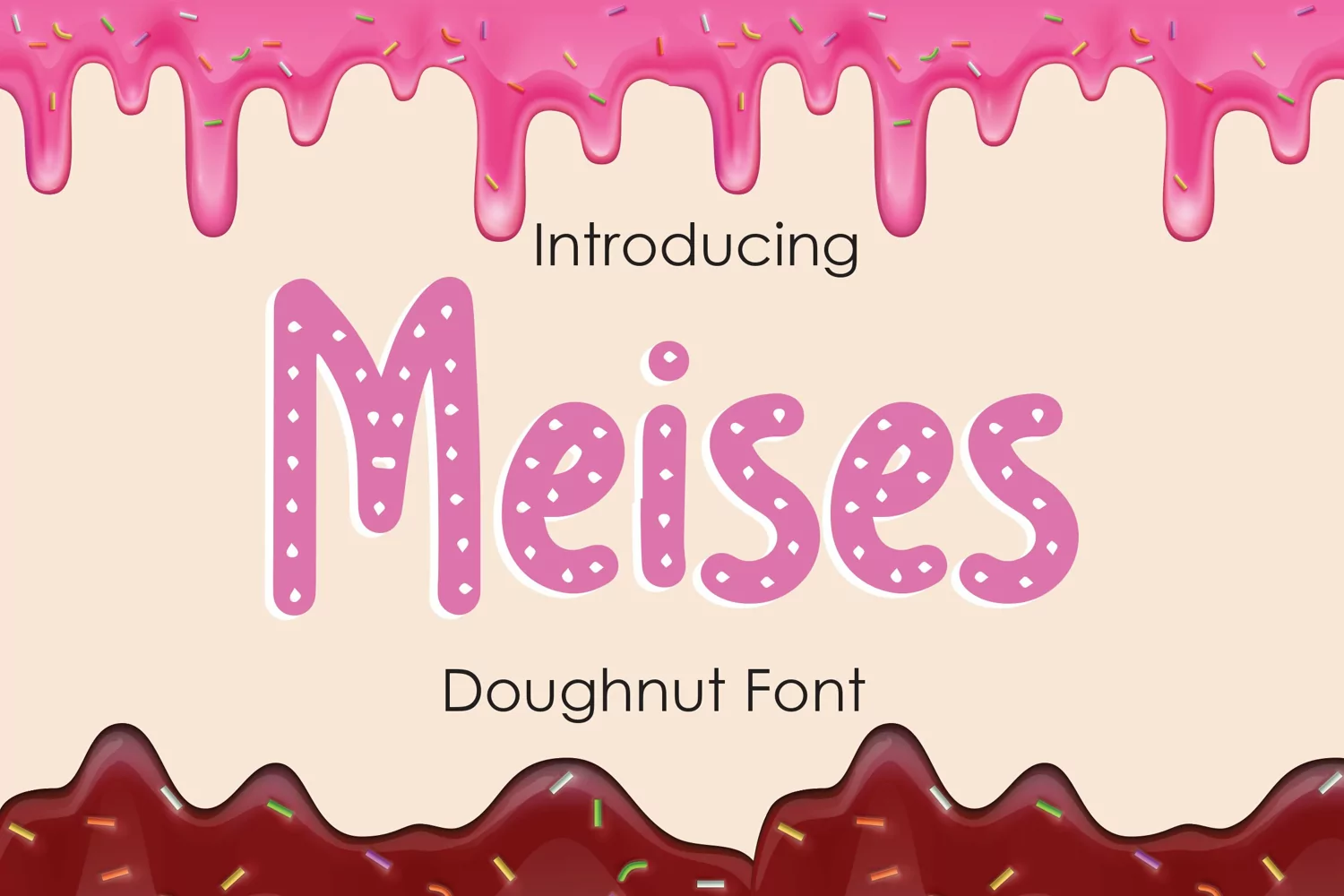
Meises - Doughnut Font that contain lowercase, uppercase, symbol, and also support multi language. There’s a lot ligatures in this font. This Font also comes with ligatures, alternates and many more. this font suitable for fashion, branding, catalog and other design what you want.
Meises